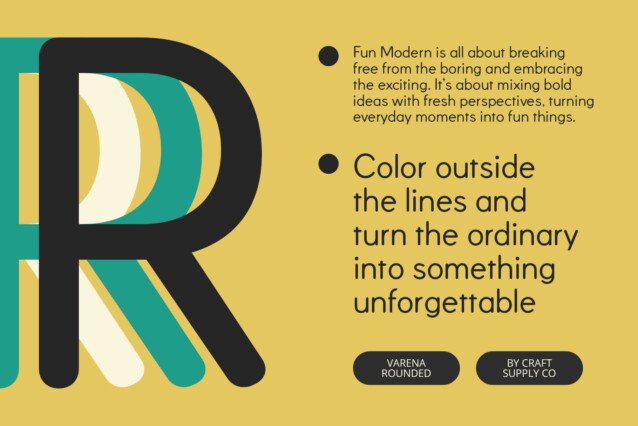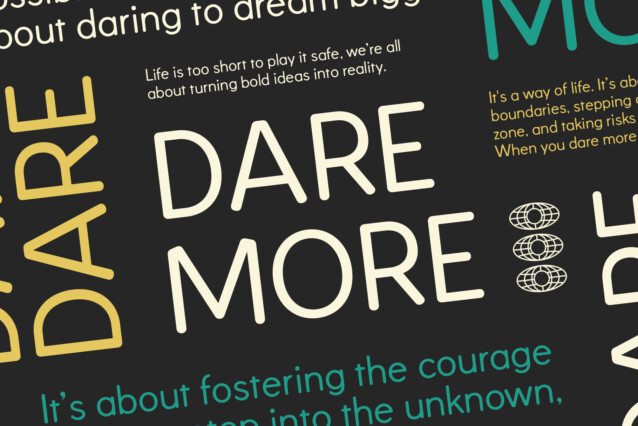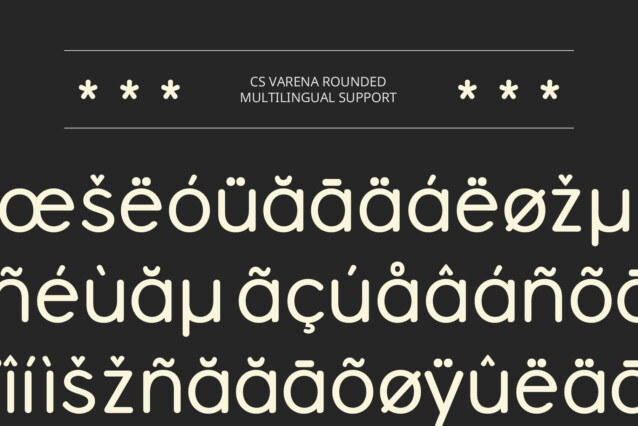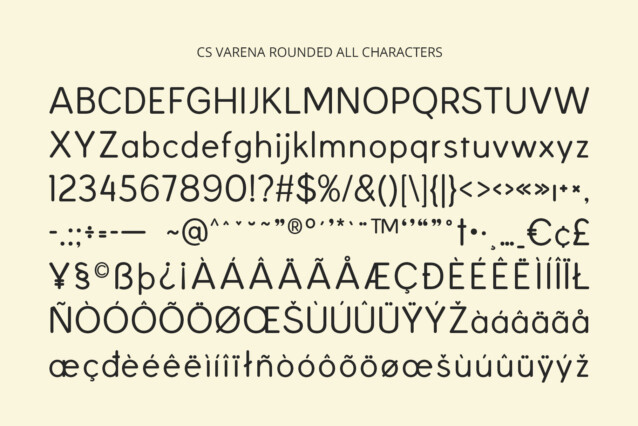
Varena Rounded Font
Varena Rounded Font is a modern sans-serif font that blends the precision of geometric shapes with the warmth of rounded edges. The sleek, clean lines of the geometric design provide a structured and organized appearance, while the soft, curved corners add a sense of approachability and charm. This combination creates a contemporary, balanced look that is both professional and friendly, making it ideal for projects that aim to feel modern yet welcoming.